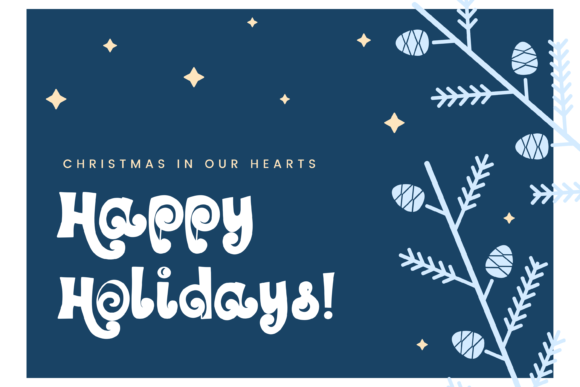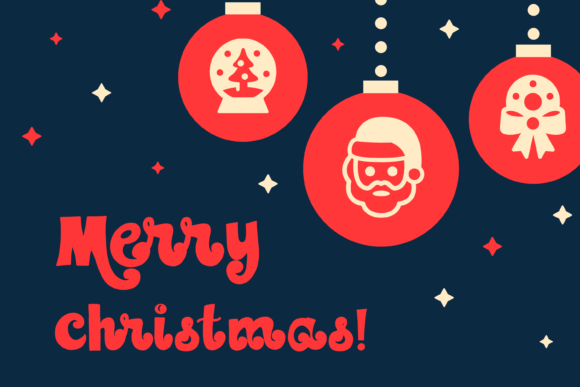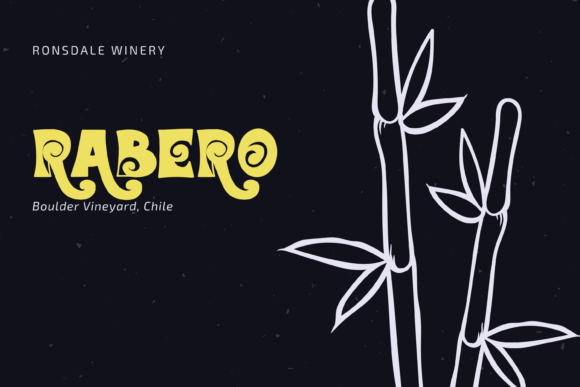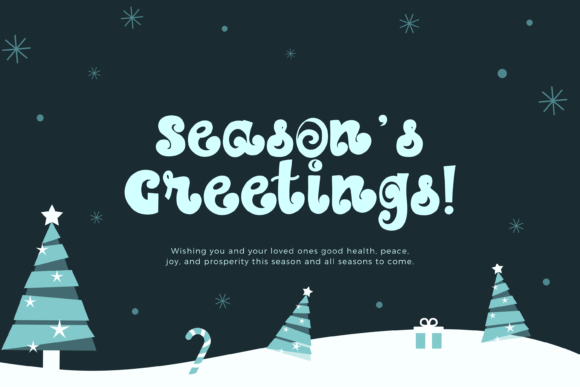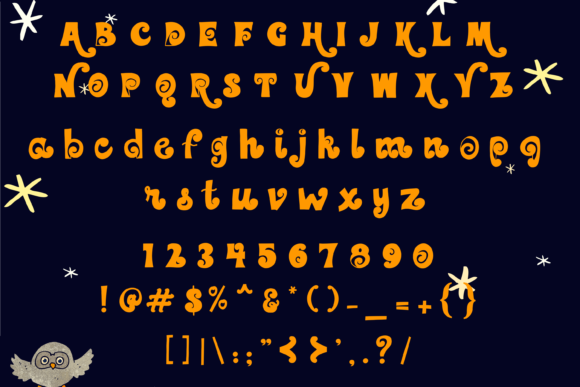
Introduction to Nice Night Font
As a designer, you’ve probably experienced that moment of pure excitement when a new project sparks your creativity. You’re scrolling through a design resource, and suddenly, you stumble upon the perfect font that sets the tone for your entire project. For many, that moment was made possible by the enchanting Nice Night Font. This whimsical display font is a treasure trove of creativity, waiting to elevate your web designs, artworks, and even classroom decorations to the next level.
What makes Nice Night Font so special is its high-quality design, making it a valuable addition to any designer’s toolkit. With its transparent background, you can easily incorporate it into your creative project, whether you’re working on a card, a web design, or a digital artwork. And the best part? It’s available for a free download, making it accessible to designers of all levels.
Whether you’re a seasoned pro or just starting out, Nice Night Font is an essential design resource that’s sure to inspire your next creative project. So, why not give it a try and see where the magic of Nice Night Font takes you?
Key Features of Nice Night Font
- High-quality design for creative projects, available for free download.
- Unique and stylish font with a transparent background, perfect for adding a touch of elegance to any design.
- Perfect for use in a variety of design contexts, including logos, headings, and body text, due to its versatility and readability.
- Nice Night Font is a valuable addition to any design resource, providing a creative and stylish solution for designers and artists.
Honest Review: Nice Night Font
I recently came across the Nice Night Font and decided to give it a try for my latest design project. Overall, I’m impressed with the quality and versatility of this font.
- High-quality design: The font is well-crafted, with clean lines and a beautiful aesthetic.
- Limited character set: The font only includes a limited set of characters, which may not be suitable for more complex design projects.
- No bold or italic versions: I would have liked to see bold and italic versions of the font to add more variety to my design.
Overall, I’m pleased with the Nice Night Font and would recommend it to designers working on creative projects. While it has some limitations, its high quality and free availability make it a valuable resource for any design library.
The Nice Night Font is a high-quality, free download that can be used for a variety of creative projects. This versatile font features a transparent background, making it easy to customize and integrate into your designs.
To get the most out of the Nice Night Font, experiment with different font sizes, colors, and combinations to find the perfect look for your project. You can also use it in conjunction with other design elements to create a unique and memorable design.
Common Use Cases for Nice Night Font
The Nice Night Font is perfect for a variety of design projects, including social media graphics, posters, presentations, and documents. Its high-quality design and transparent background make it a versatile and useful resource for any creative project.